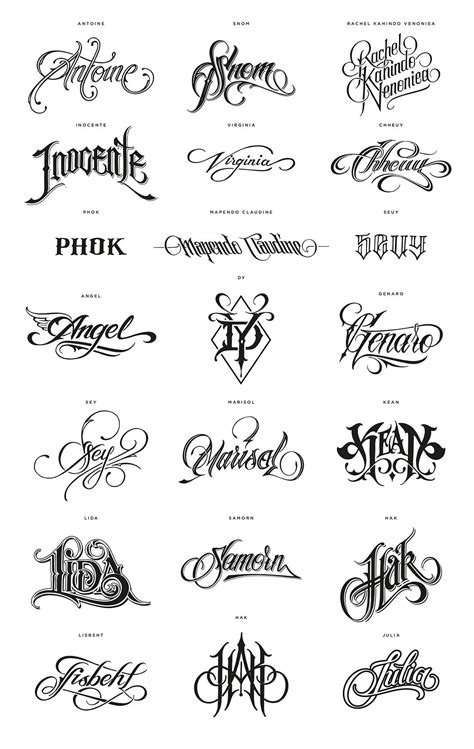
The bravest people love to make them even on the head or face. The most popular fonts for tattoos are script fonts, which usually look personal and unique, such as calligraphy and handwriting. The thing you should decide is where exactly you want to get a tattoo.
List of best tattoo fonts. Below is a collection of tattoo fonts. So, pick according to your. This tattoo font includes 2 types of each letter, uppercase & lowercase characters, punctuation and numerals.
Candelabra blackletter font + extras. The most popular fonts for tattoos are script fonts, which usually look personal and unique, such as calligraphy and handwriting. Pick the colour of your text from the colour list then hit the generate button! Hero beam tattoo is a decorative vintage typeface, remastered for a modern performance. Star typeface tattoo font is classic with.
Tattoo letter design free fonts. An ideal choice for tattoo lettering, band logos and album art, trendy fashion apparel, book covers, game design, packaging design and more. Fortunately, we have many unique tattoo font styles for men and women, such as calligraphy, cursive, and traditional styles. For such tattoo designs, a calligraphy font will be ideal. This lettering font tattoo.